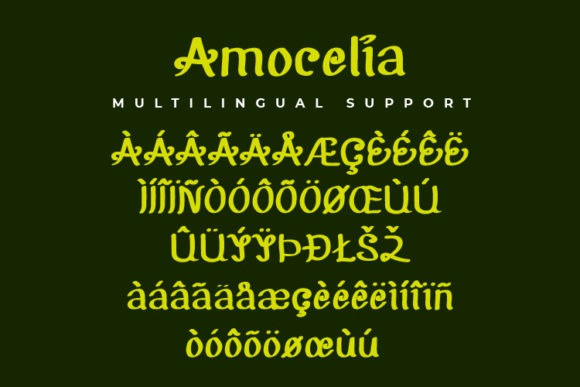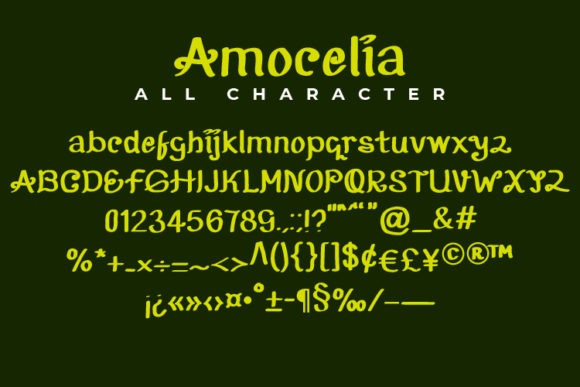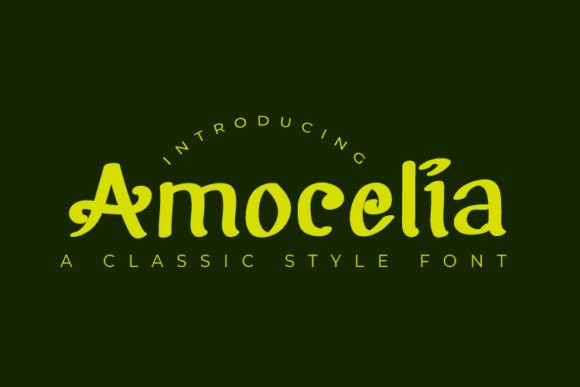
Amocelia Display Font
Amocelia is a simple handwritten font made with a strong sense of art. This font supports multilingual characters so it’s perfect for your creative projects! suitable for logos, posters, flyers, and many more.